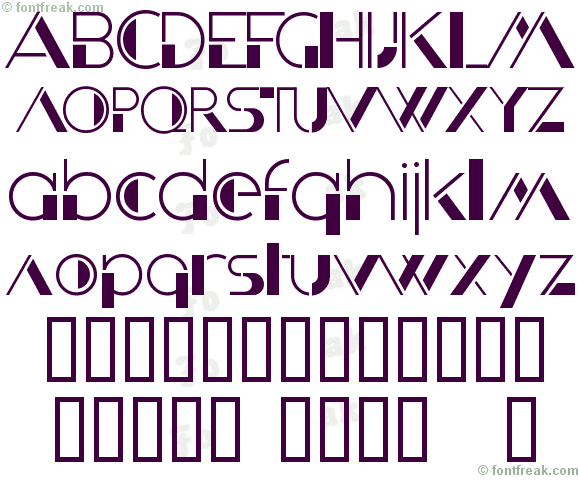
Krizia Uomo
About Krizia Uomo
The Krizia Uomo font, designed by Levi in 1998, is a striking display typeface that combines modern aesthetics with a touch of classic elegance. As a decorative font, it features bold, geometric shapes that create a strong visual impact, making it perfect for projects that require a distinctive look. The stroke weight is consistent, providing a sense of balance and stability, while the clean lines and sharp angles contribute to its contemporary feel. The spacing is thoughtfully designed to enhance readability without sacrificing style, making it suitable for both headlines and body text.
This font is particularly well-suited for a variety of creative applications. It shines in wedding invitations, where its unique character can add a personalized touch to special events. Additionally, Krizia Uomo works wonderfully for movie posters, capturing attention with its bold presence and modern flair. Restaurant menus will benefit from its stylish elegance, enticing diners with a sophisticated presentation. Small business branding also finds a great ally in this font, as it can effectively communicate a brand's personality and vision.
The target audience for the Krizia Uomo font includes graphic designers, small business owners, and content creators who seek to elevate their projects with a unique typeface. Whether you are creating eye-catching marketing materials or designing a logo that stands out, this font provides versatility and charm.
What sets the Krizia Uomo font apart is its ability to blend modern design elements with timeless elegance, offering a fresh take on classic typography. Its free availability makes it an accessible choice for those looking to make a statement in their designs. For anyone in search of a distinctive typeface, the Krizia Uomo font free download is an excellent option to consider.